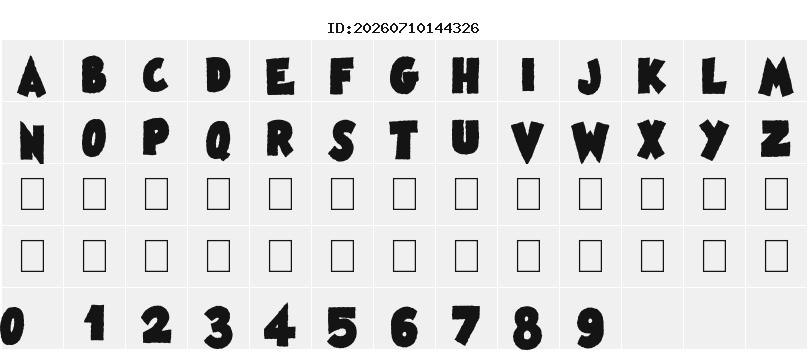
Famous Oldies Black Preview
• Font Name: Famous Oldies Black
• Font ID: Famous Oldies Black:Version 1.00
• Full Font Name: Famous Oldies Black
• Version: Version 1.00 August 30, 2013, initial release
• PostScript Name: FamousOldiesBlack
• Character Count: 50
• Designer: Imagex
About Famous Oldies Black.ttf
Famous Oldies Black.ttf is a modern, elegant sans-serif font designed for ultimate readability and visual harmony. Perfect for branding, headlines, web design, and print materials.